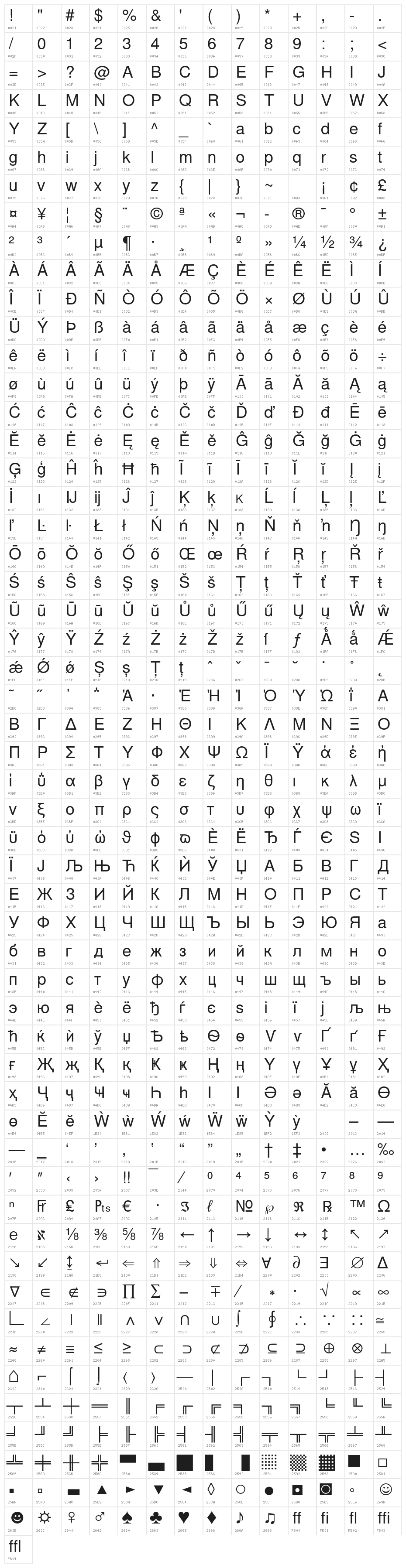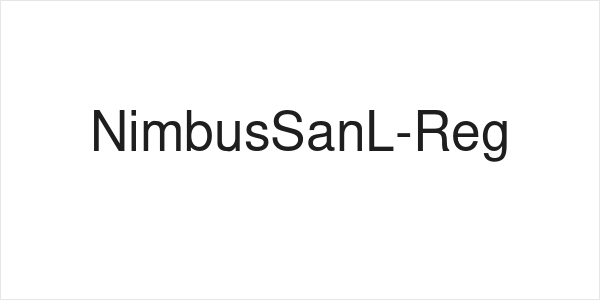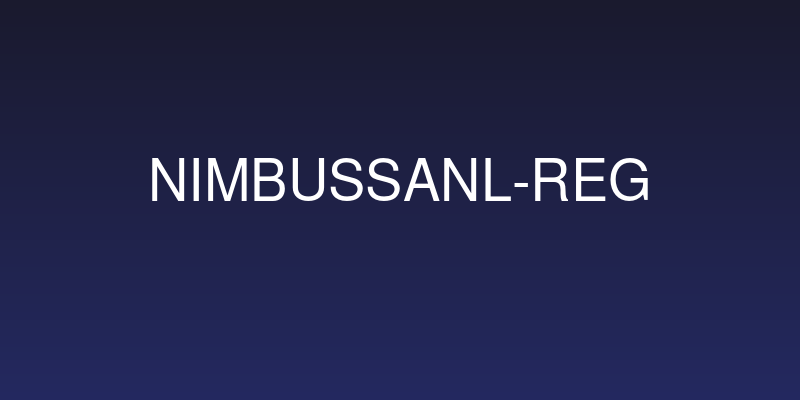
NimbusSanL-Reg Font
NimbusSanL-Reg Description
This font features a clean and modern sans-serif design, characterized by its simple and straightforward letterforms. The uppercase letters are bold and assertive, while the lowercase letters maintain a consistent and harmonious appearance. The numerals are clear and easy to read, making them suitable for various applications. Special characters are well-defined, ensuring versatility in usage. The overall design is balanced, with even stroke widths and a uniform appearance that enhances readability.